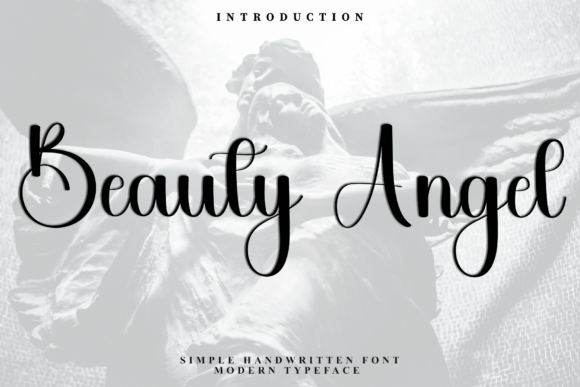
The Perfect Touch of Whimsy: Unlocking the Beauty of Beauty Angel Font
Have you ever been stuck on a design project, struggling to find the perfect font to bring your vision to life? You know, that moment when you’re pouring over font options, and nothing seems to capture the essence of your creative idea? I’m sure we’ve all been there. But what if I told you that there’s a font that can add a touch of magic to your designs, making them truly unforgettable?
Enter the Beauty Angel Font, a stunning handwritten font that’s perfect for creating eye-catching logos, branding, and quotes. This lovely and timeless font is designed to add a unique and beautiful touch to your designs, making them truly special. Whether you’re a seasoned designer or just starting out, the Beauty Angel Font is a valuable addition to your toolkit, offering endless possibilities for creative expression.
Key Features of Beauty Angel Font
- Unique Characteristics: This font features a unique blend of elegant and modern elements, with intricate details and subtle flourishes that set it apart from other fonts in its category.
Beauty Angel Font Review
Overall, I think the Beauty Angel Font is a solid choice for designers looking to create a feminine and elegant aesthetic. ✨ The font’s flowing curves and delicate lines make it perfect for beauty and lifestyle brands, as well as any other project that requires a touch of sophistication.
Here are some of the things I like about the Beauty Angel Font:
- ✨ Versatility: The font works well in a variety of contexts, from headings to body text.
- ✨ Elegant feel: The font’s flowing curves and delicate lines give it a sophisticated, high-end feel.
- ✨ Wide character set: The font includes a wide range of characters, including international characters and symbols.
However, I do have a few reservations:
- ⚠️ Limited expressiveness: While the font is elegant, it may not be the best choice for projects that require a lot of emphasis or boldness.
- ⚠️ Limited weight options: The font only comes in a few weight options, which may limit its versatility in certain contexts.
Overall, I think the Beauty Angel Font is a great choice for designers who want to create a sophisticated and elegant aesthetic. With a little creativity and experimentation, I’m sure you can get great results with this font.
Tips for Getting the Most Out of Beauty Angel Font
Use the Beauty Angel Font to add a touch of elegance and sophistication to your designs.
Pair it with bold, bright colors to create a striking contrast.
Use it in combination with other fonts to create a unique and eye-catching typography.
Beauty Angel Font is perfect for:
Brand logos and identity
Magazine and newspaper headlines
Advertising and marketing materials
What is the recommended font size for optimal readability with the Beauty Angel Font?
The recommended font size for optimal readability with the Beauty Angel Font is between 12pt and 18pt. This range provides a clear and legible display of text while maintaining the font’s intended aesthetic. However, feel free to experiment with different font sizes to find the perfect balance for your specific design needs.